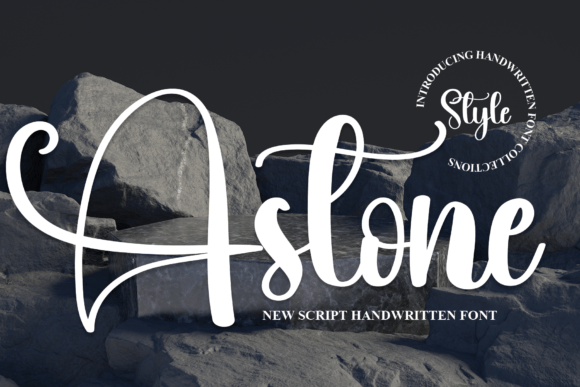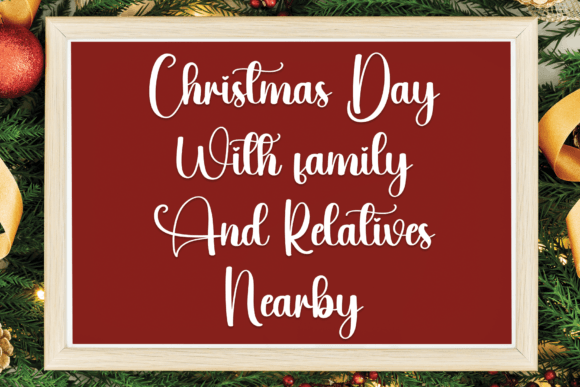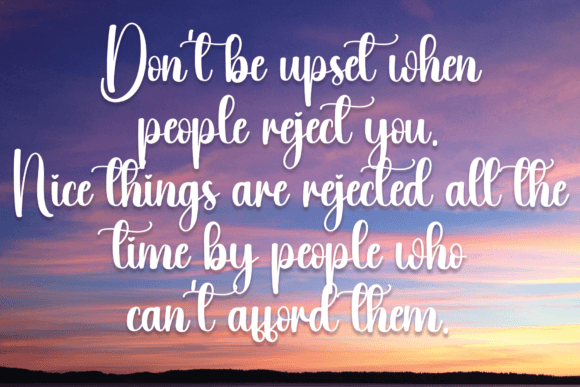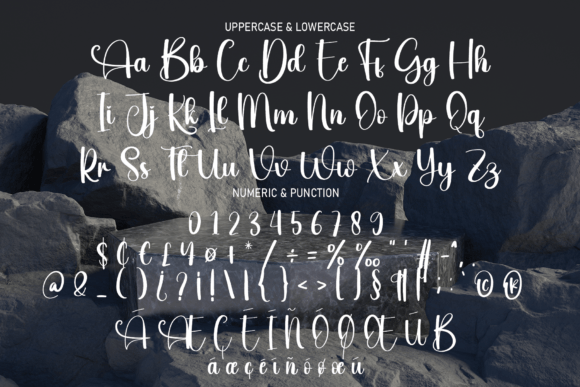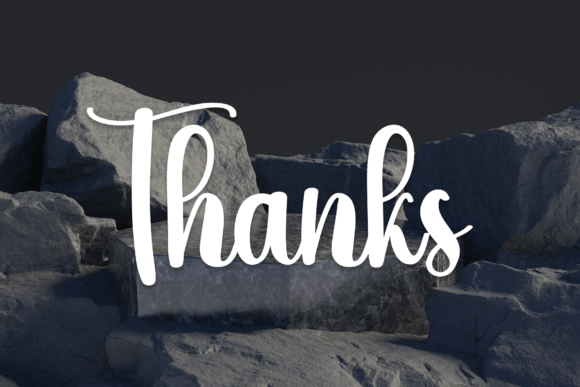
Astone Font
Add Bold Elegance with Astone Font
The Astone font is a bold and exquisite handwritten script designed to bring style, grace, and flow to your creative projects. Its confident strokes and natural movement elevate any design, adding a sophisticated yet grounded look. Whether you’re working on branding, invitations, logos, or other beautiful creations, Astone enhances your work with elegance and authenticity.
Perfect for Elegant Branding and Invitations
The Astone font is ideal for a wide range of applications including luxury branding, wedding invitations, social media graphics, product packaging, and editorial design. Its stylish and flowing letterforms help your projects stand out with a refined and natural feel.
A Handwritten Script with Style and Grace
Each character in the Astone font is carefully crafted to balance boldness with smooth, graceful curves. The font’s flowing design creates harmonious compositions that draw attention while maintaining readability and a natural aesthetic.
Despite its bold and decorative nature, the Astone font maintains excellent readability across different sizes. Whether used for large headlines or smaller text elements, it balances style with clarity, making it versatile for many creative projects.
Make Your Designs Stand Out with Sophistication
Typography shapes the tone and personality of your designs, and Astone adds boldness and grace. If you want to elevate your projects with a stylish and exquisite handwritten script, download the Astone font today and create stunning, natural-looking visuals.